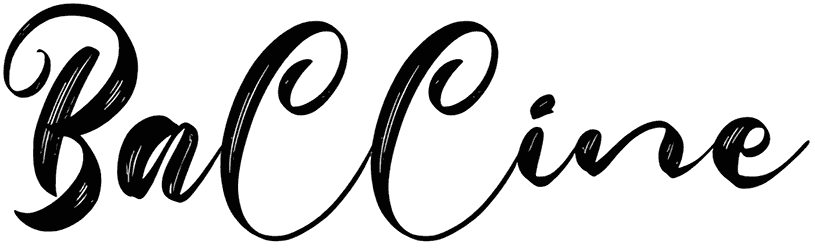
Balline Font
Making memorable and timeless graphic content is not a difficult task anymore with the help of a lovely script font, the same as Balline, which comes with delicate characters and sophisticated texture.
This masterpiece can be seriously considered a reliable choice for designing book covers, magazines, invitations, greeting cards, or flyers. Just in case you require another font that carries a sense of dynamic, professionalism, delicacy, or precision, don’t hesitate to check out our expanding font collection.